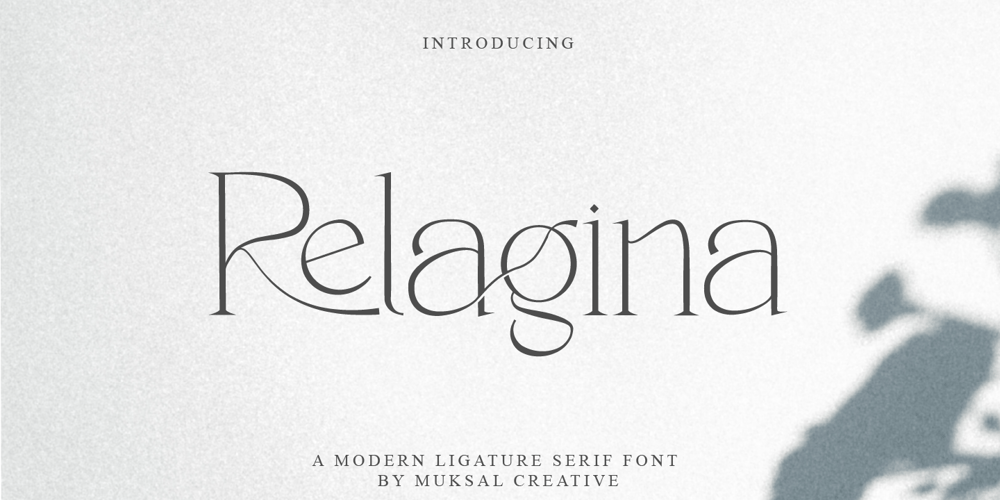
Relagina Font Family was designed by Muksalmina and published by Muksal Creatives. Relagina contains 1 styles and family package options. Introducing Relagina is a elegant and classy serif typeface – This font is both modern and nostalgic and works great for logos, magazine, social media. Already matched up and ready to be used together for your next design! For those of you who are needing a touch of elegant, stylish, classy, chic and modernity for your designs, this font was created for you!